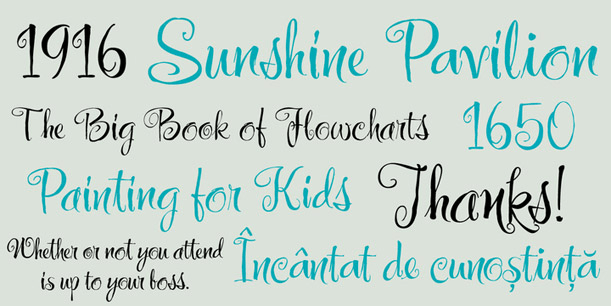
Ginger Snap
About Ginger Snap
Ginger Snap is an original Jukebox design that was inspired by a project I was working on in 2010, and is a fun, feminine script full of whimsy and joy. Ginger Snap has three versions of each letter, allowing the designer to create a font with a more…